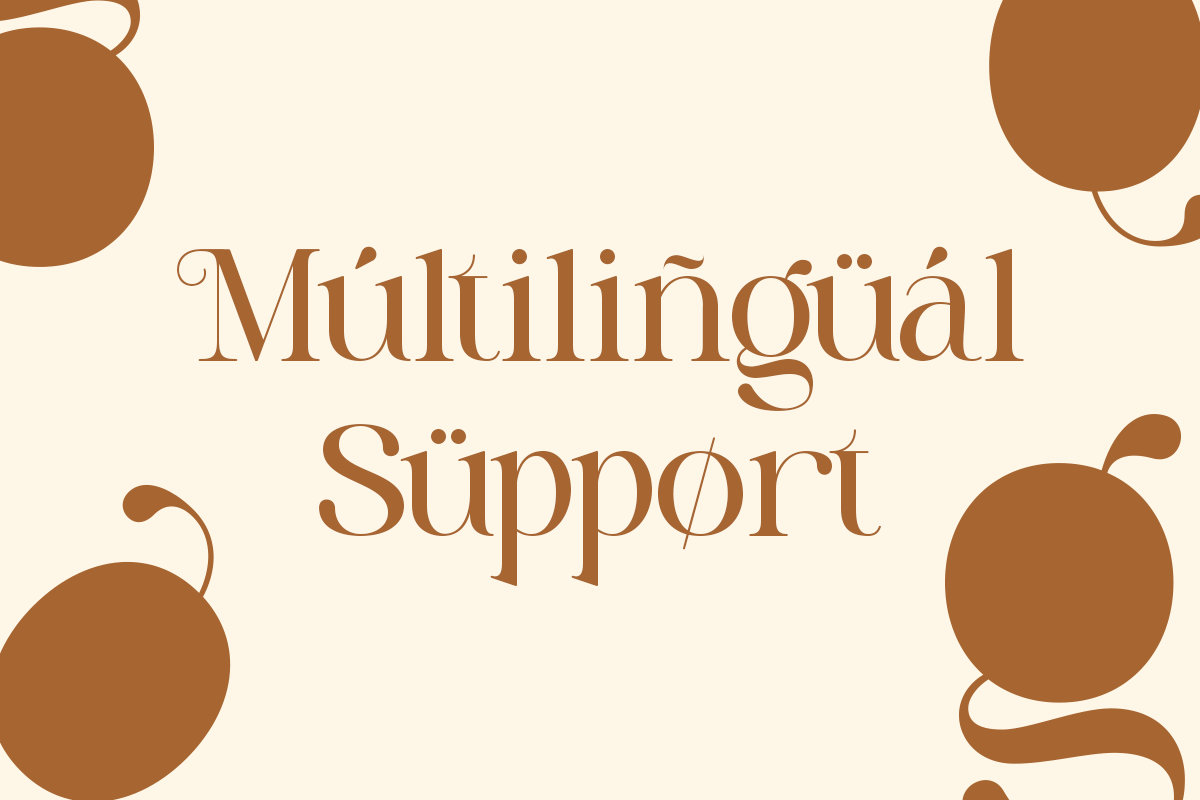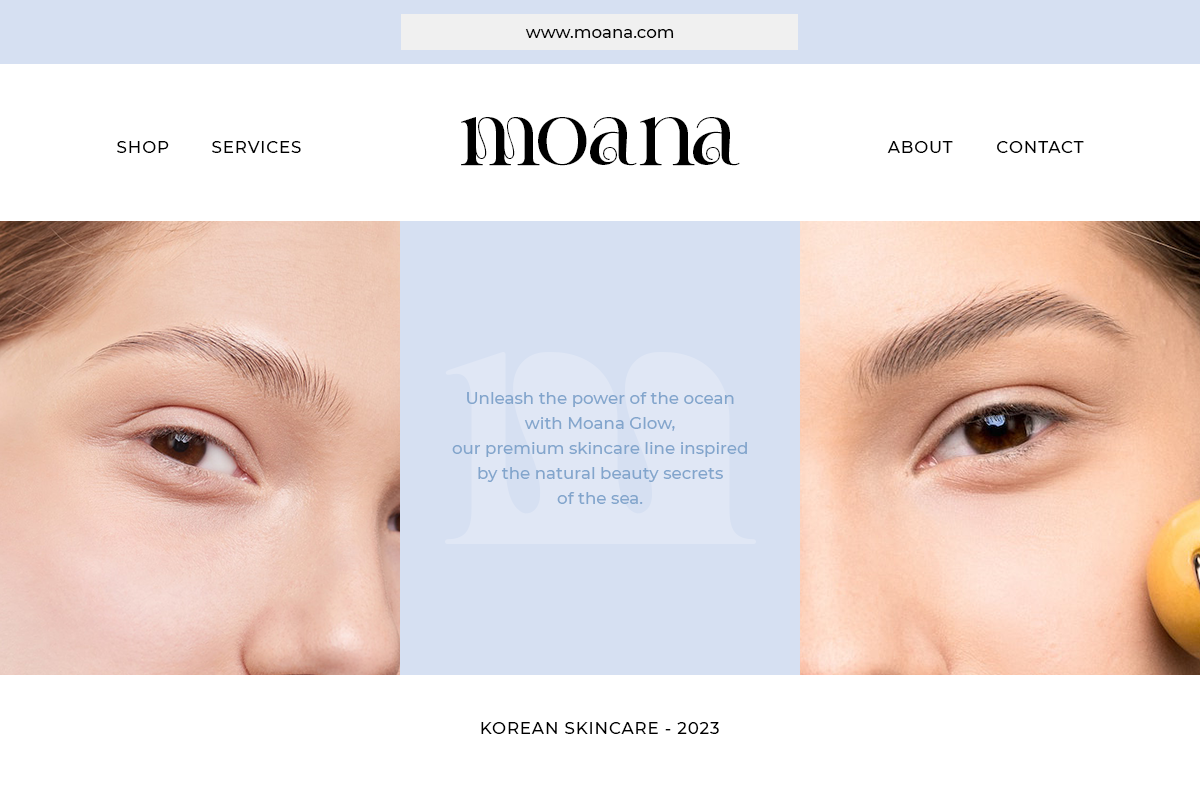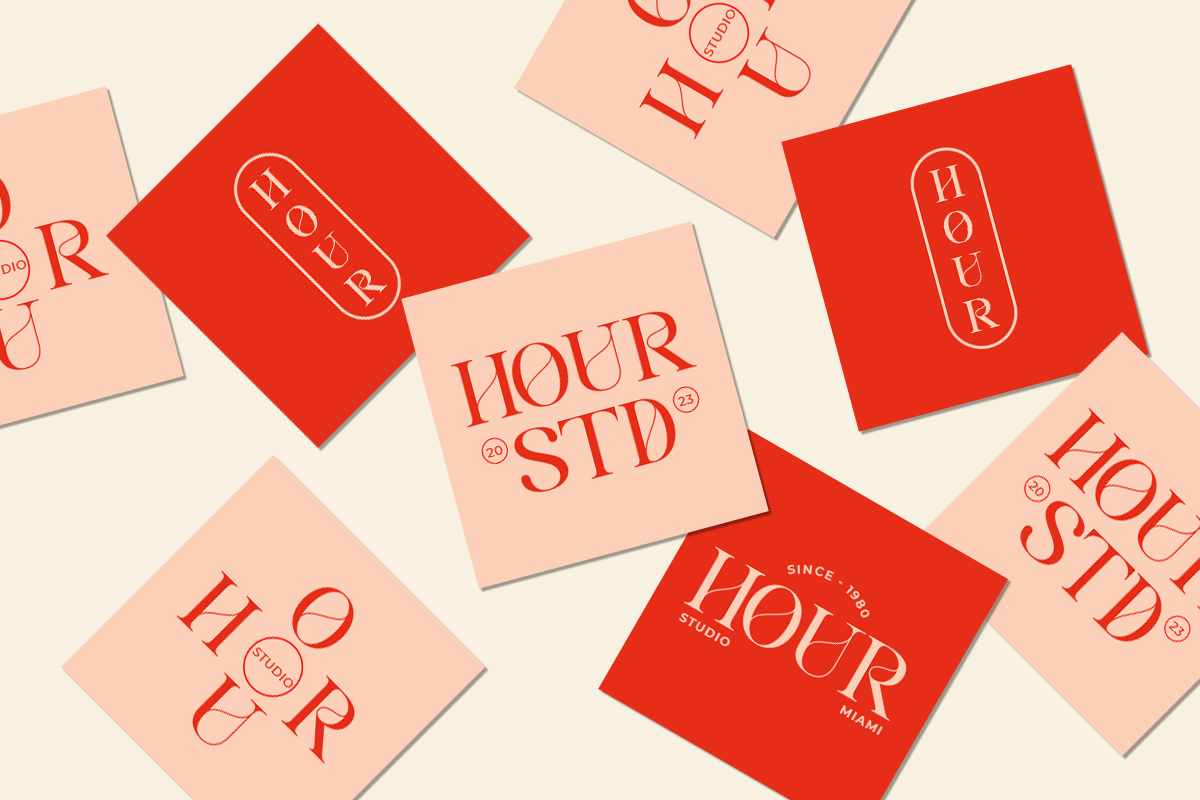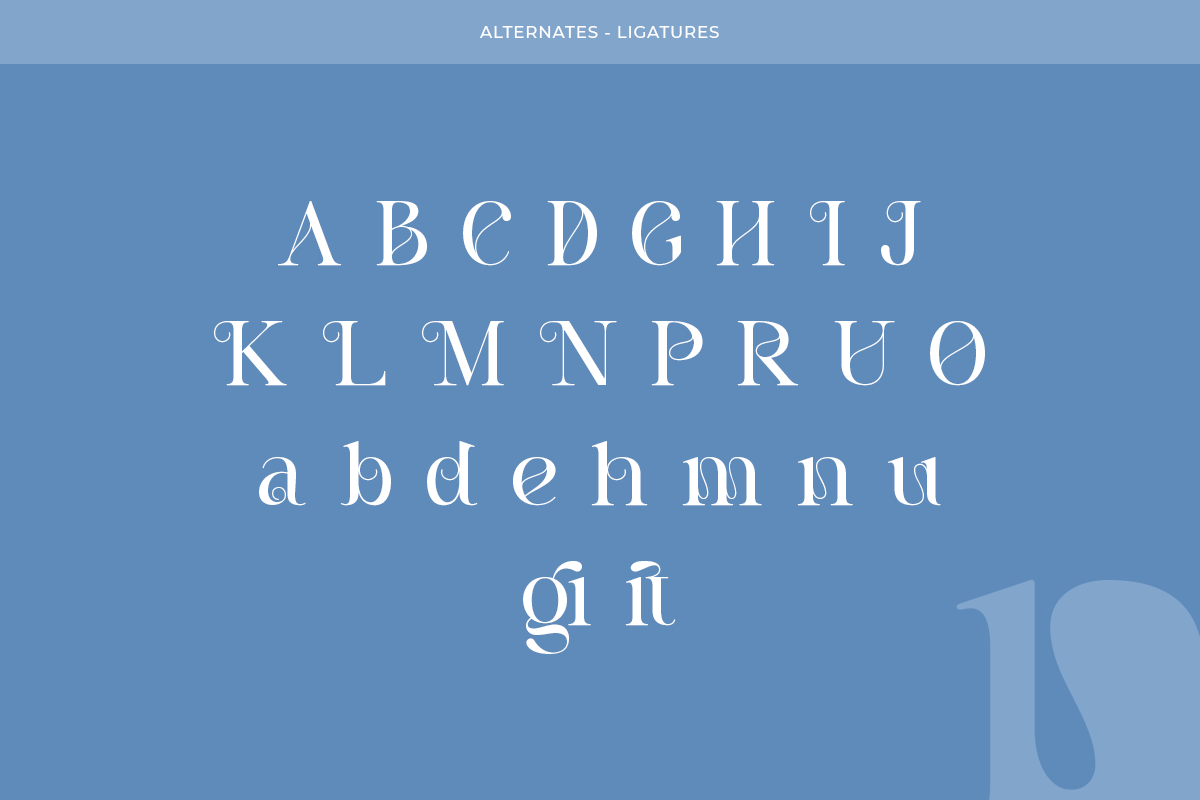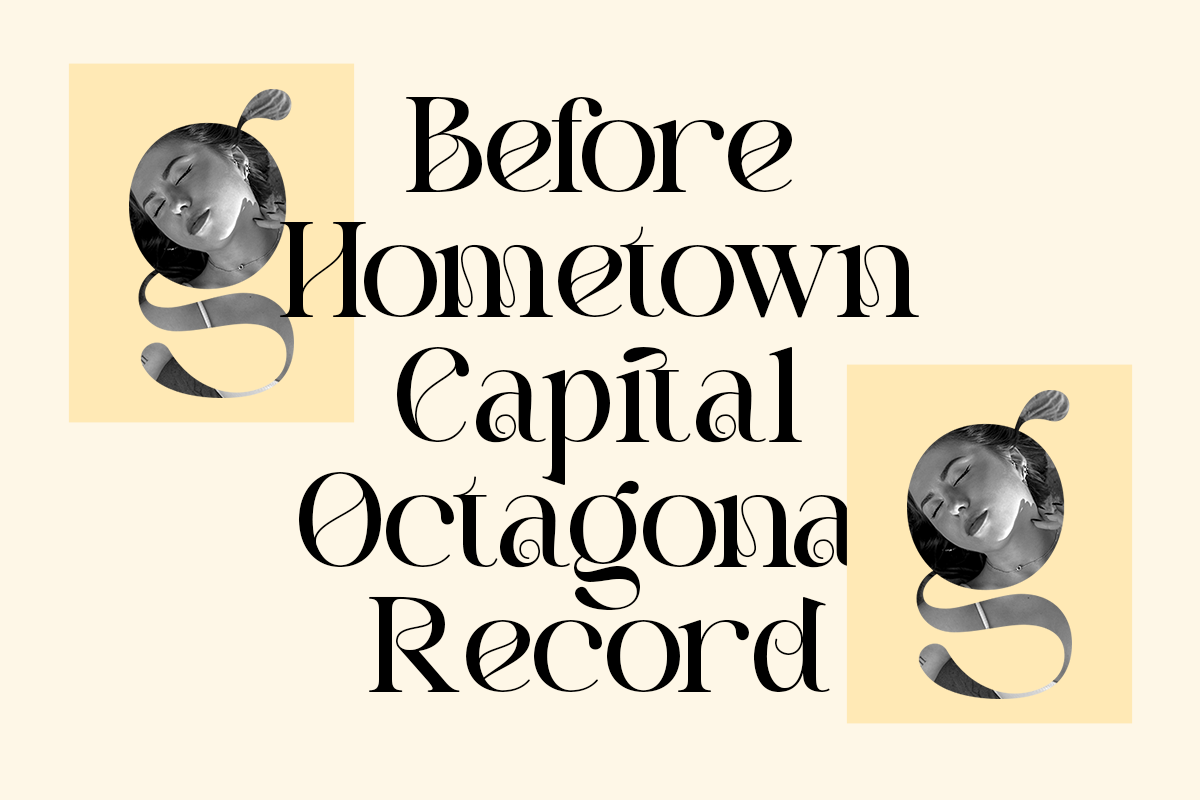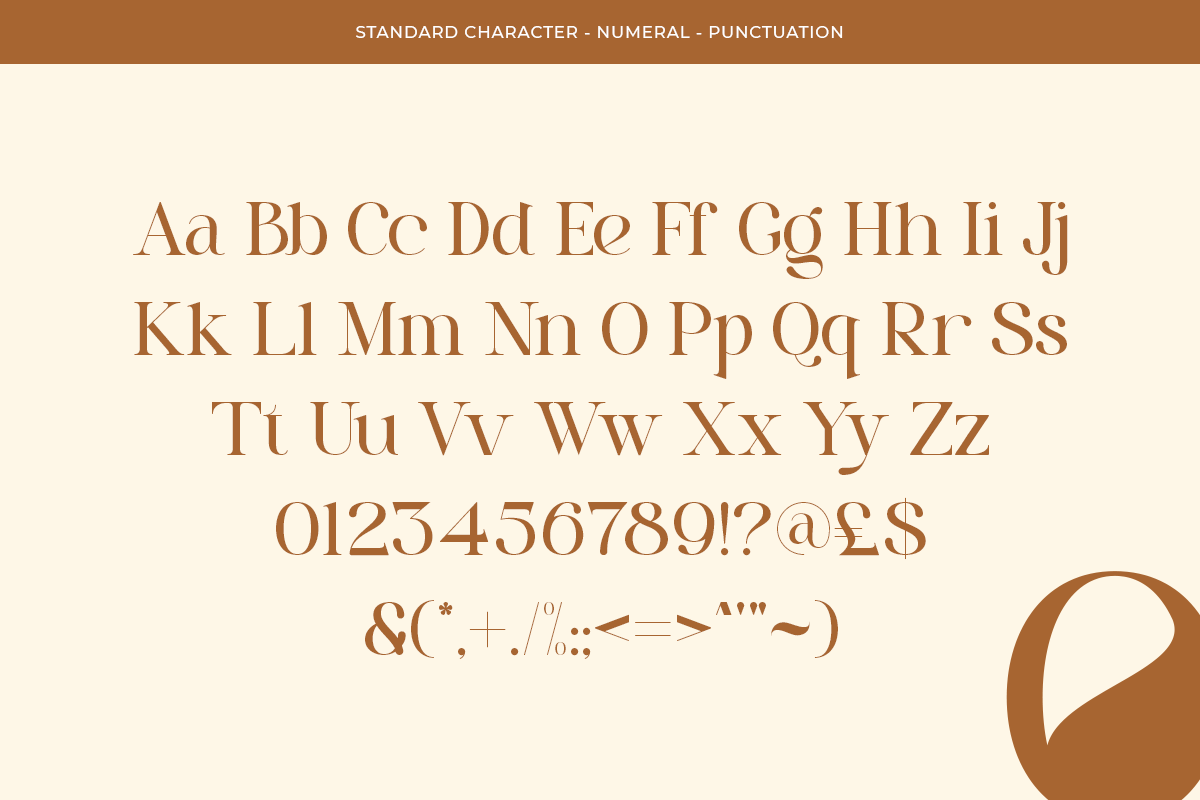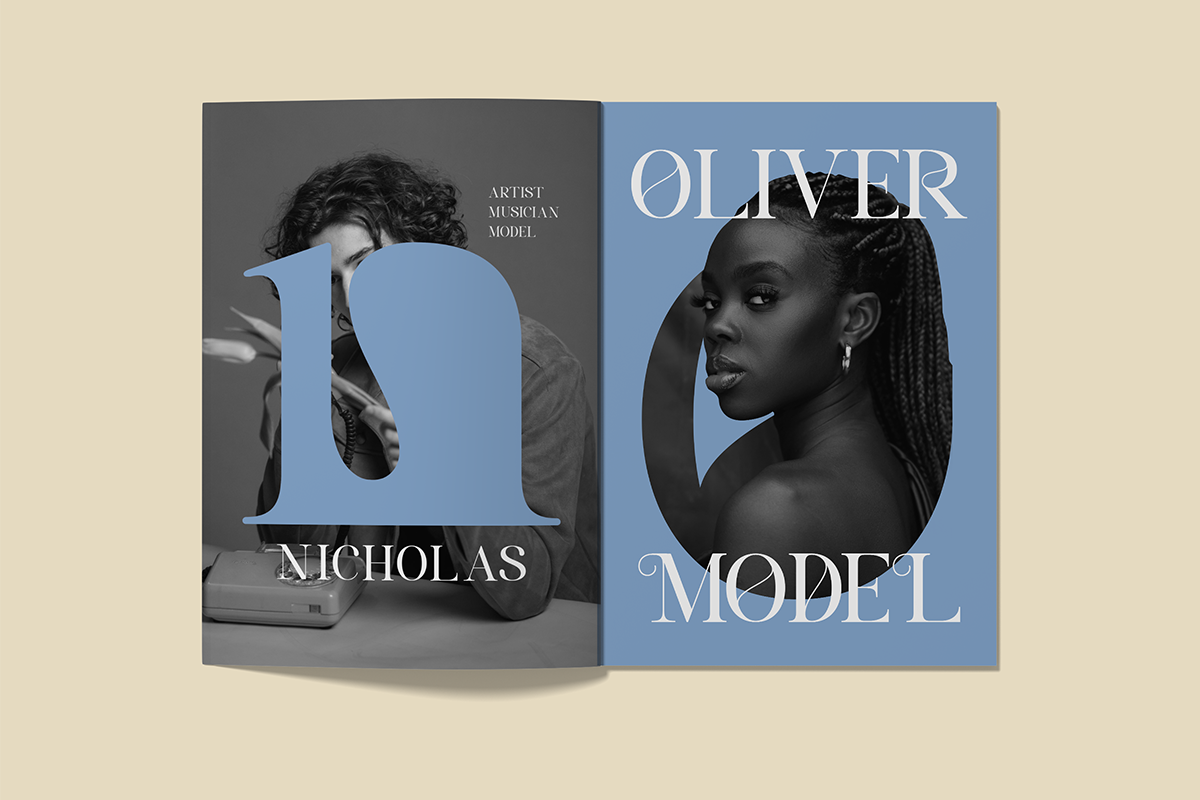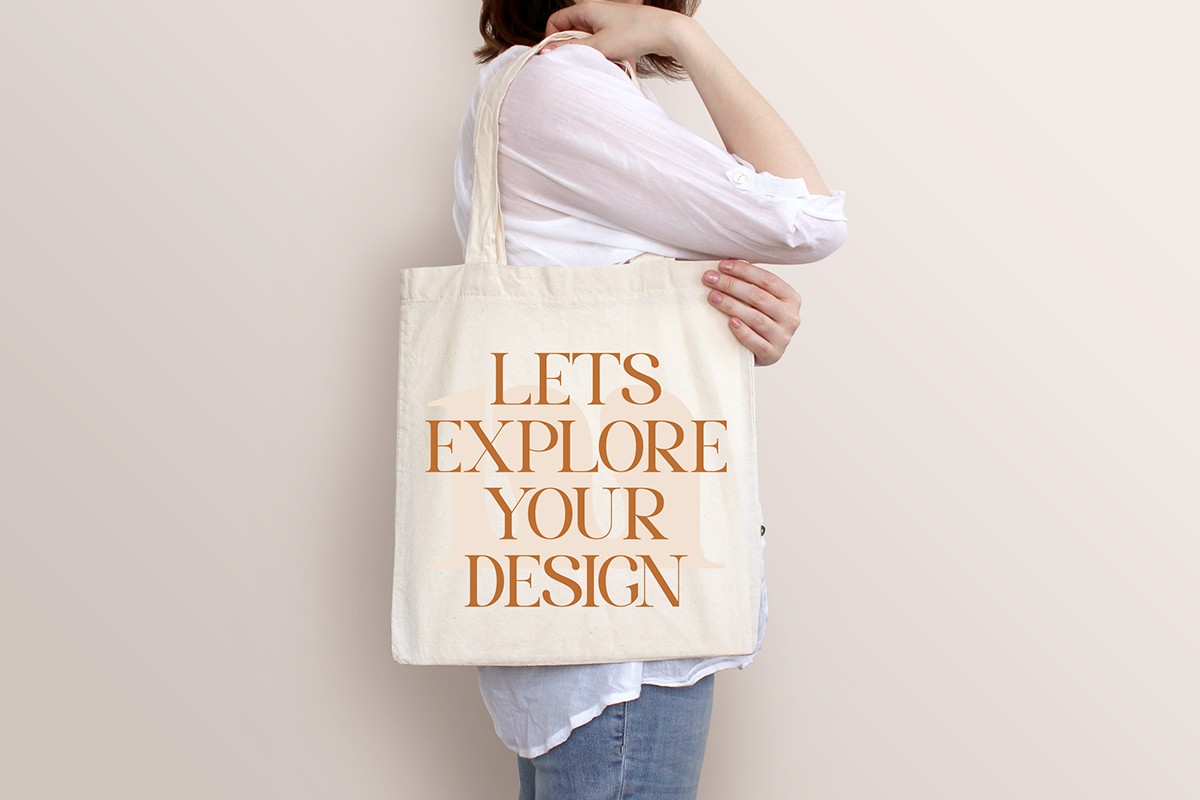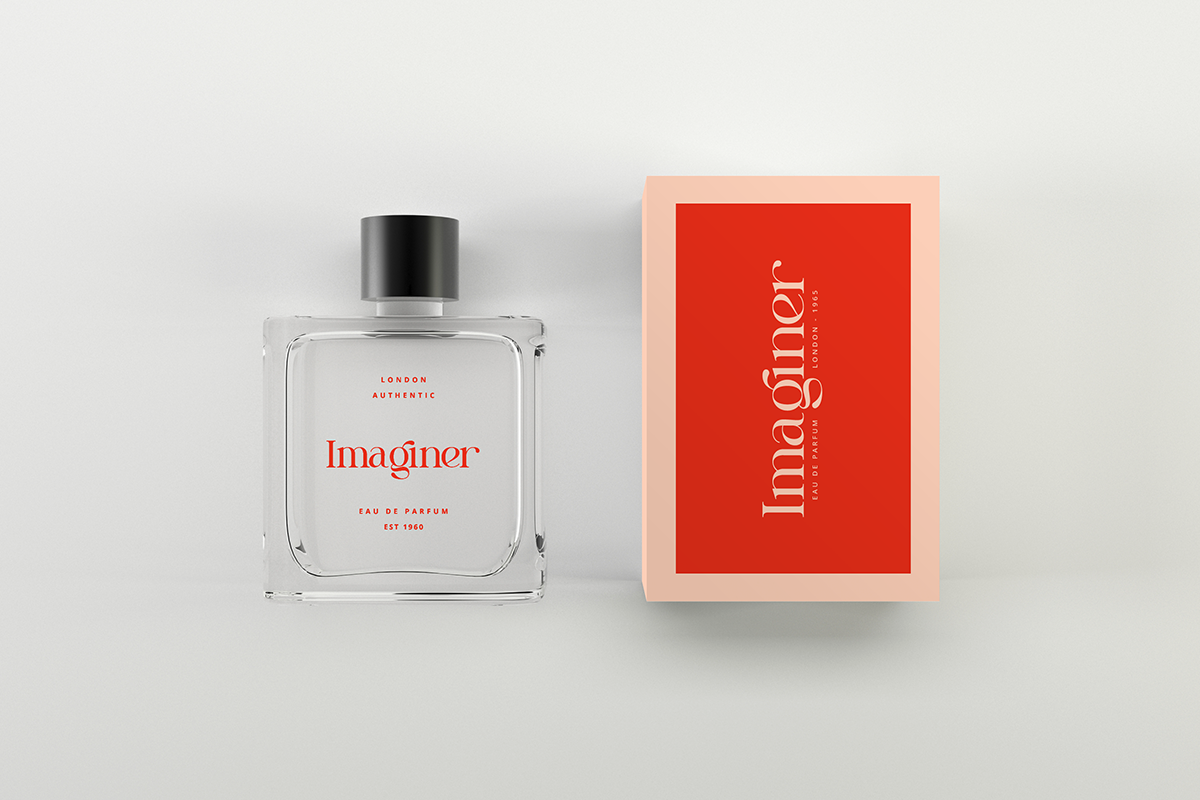
Pritude Radiance - Elegant Branding
Pritude Radiance is a Modern elegant branding serif typeface with Unique alternative , multilingual support with perfect kerning. This typeface is perfect for an elegant & luxury logo , classy editorial design, women's magazine, fashion brand , cosmetic brand, fashion promotion , modern advertising design, invitation card, art quote, home decoration , book/cover titles, special events, Tote bag, T-shirt, Advertising and much more.
Pritude Radiance Features:
- Uppercase And Lowercase
- Alternates And Ligatures